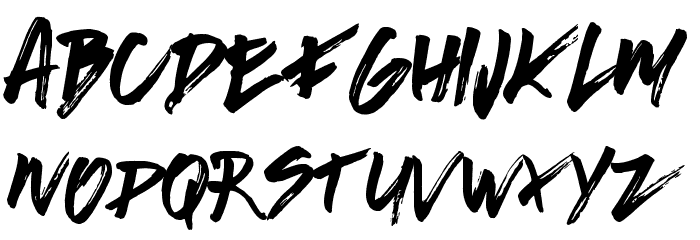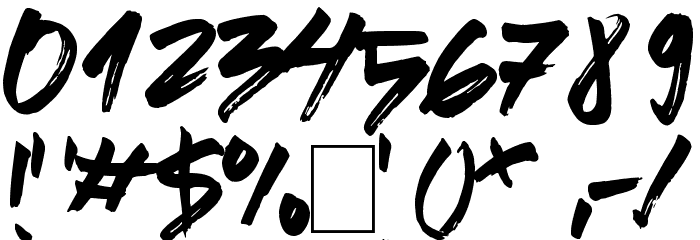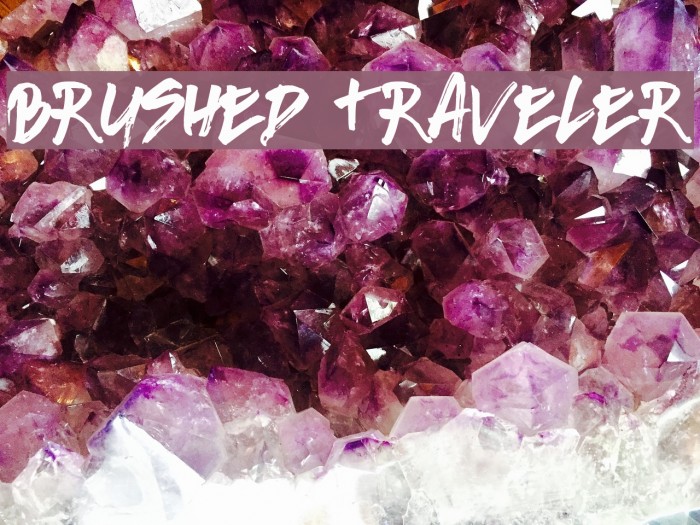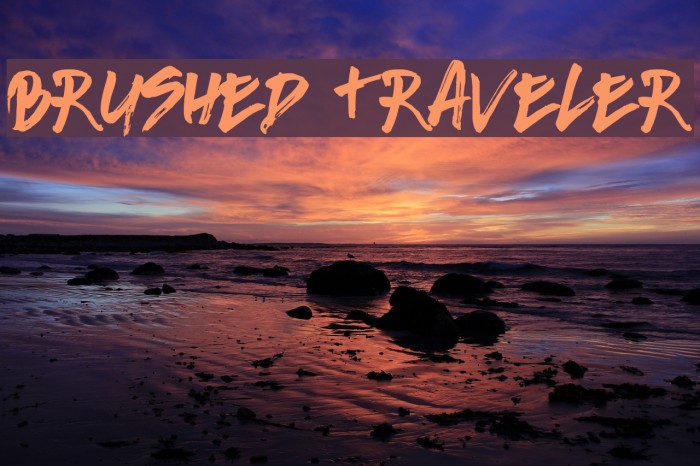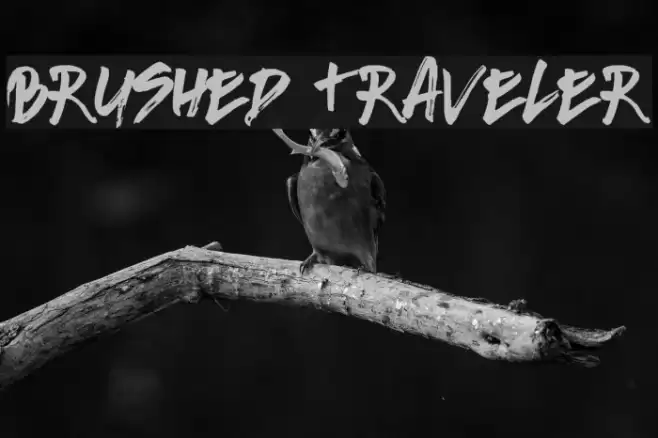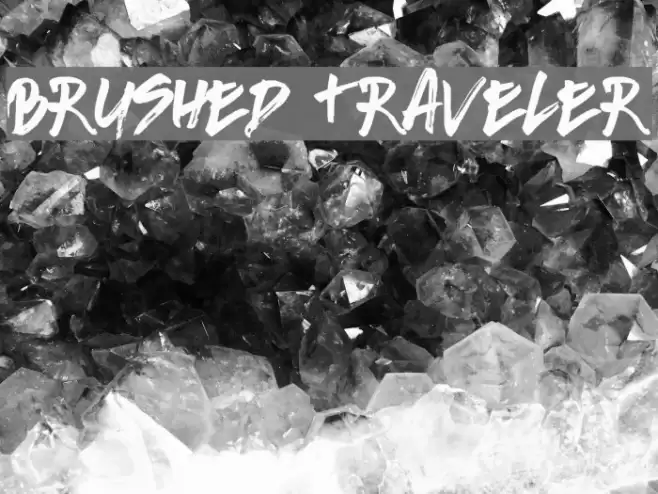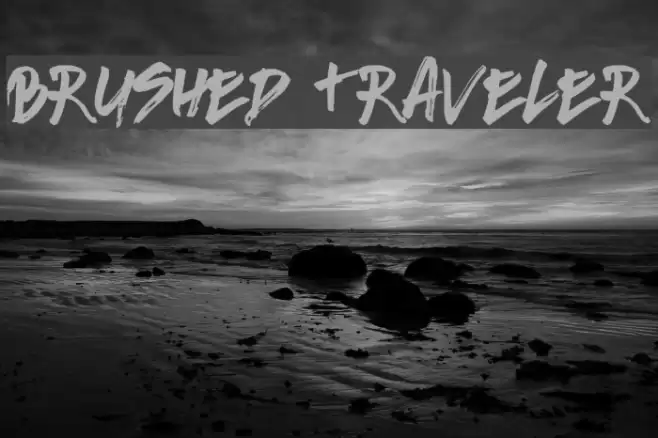
Brushed Traveler Font
This font exudes a bold and energetic style, reminiscent of brush strokes with a dynamic and expressive flair. The characters are crafted with a sense of movement and spontaneity, featuring uneven edges and varying stroke thicknesses that give it a hand-painted appearance. The uppercase and lowercase letters maintain a consistent style, with a slightly aggressive slant that adds to its lively character. Numbers and special characters are equally expressive, maintaining the same brush-like quality. This font is ideal for projects that require a touch of creativity and boldness, making it perfect for artistic and modern designs.
A bold, brush-style font with dynamic and expressive strokes.